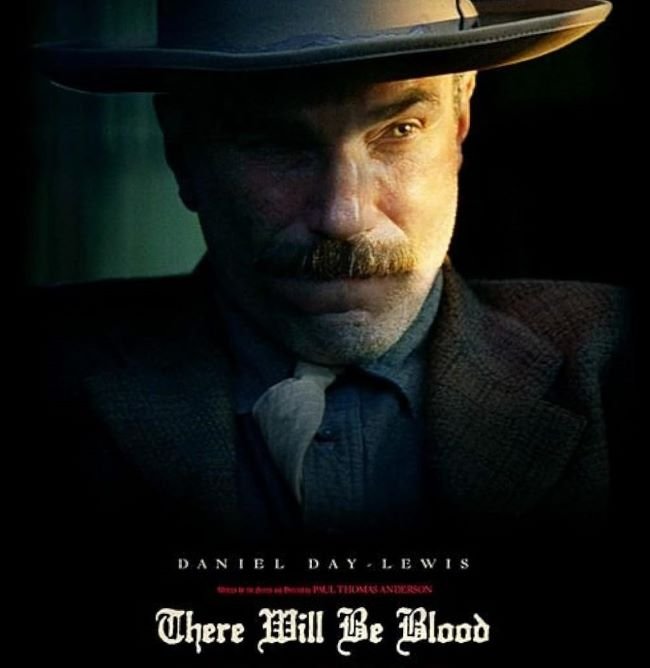
There Will Be Blood font arrives on the poster with the same implacable weight as Daniel Day-Lewis’s Daniel Plainview — heavy, archaic, and entirely convinced of its own authority. P.T. Anderson’s 2007 film demanded lettering that could carry the biblical gravity of a story about oil, god, and the destructive logic of unchecked American ambition, and the answer was a gothic blackletter tradition: dense, calligraphic strokes with the texture of ink pressed into rough paper, evoking old newspaper mastheads, temperance pamphlets, and frontier-era scripture. The freely available There Will Be Blood Font gives designers access to this heavy, scripturally weighted typographic world.